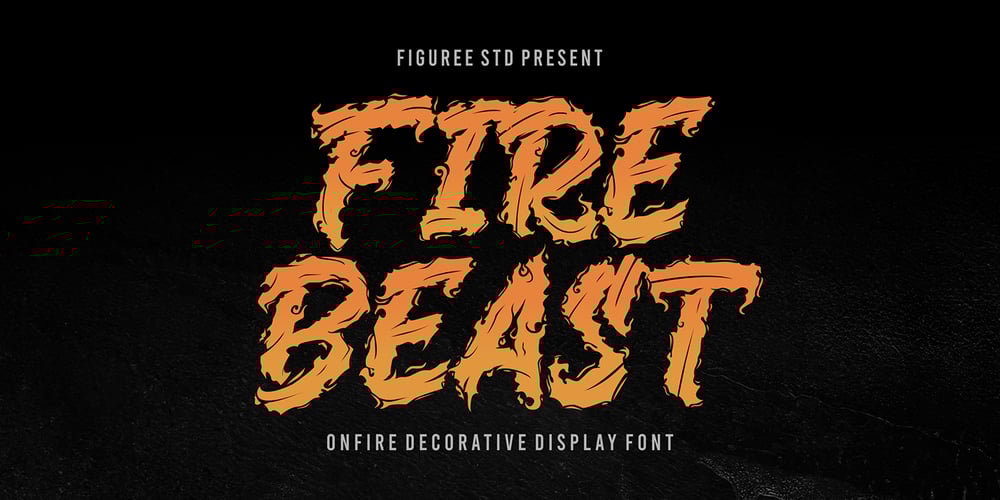
Fire Beast Font Family was designed by Icep Anwar Fadhil and published by Figuree Studio. Fire Beast contains 1 styles and family package options. Introducing Fire Beast – the Decorative Fire Font that ignites your designs with fierce intensity and dramatic flair. Perfect for projects that demand a bold and fiery touch, Fire Beast combines striking letterforms with flame-inspired embellishments to create a font that is both powerful and captivating.🔥 Blazing Intensity: Fire Beast sets your designs ablaze with its bold and dynamic style. Each letter is adorned with flame-like details, evoking the fierce energy and captivating allure of fire, making it ideal for projects that need a strong and dramatic visual impact.⚡ Striking and Bold: With its eye-catching design, Fire Beast captures attention. The font’s decorative elements ensure your text stands out, making it perfect for headlines, posters, and branding that require a commanding and memorable statement.🌟 Decorative Elegance: Whether you’re designing for music events, sports teams, or edgy brands, Fire Beast adapts effortlessly. Its unique fire-inspired design adds a touch of bold sophistication to a wide range of applications, enhancing the visual appeal of your work.💥 Fiery Visual Appeal: Fire Beast’s intense and decorative look captures the essence of flames. The font’s distinctive character ensures your message is conveyed with passion and strength, leaving a lasting impression on your audience.🚀 Versatile for Various Projects: From album covers and merchandise to digital graphics and promotional materials, Fire Beast excels in any context. Its fiery aesthetic enhances your designs, making them resonate with energy and intensity.Ignite your creativity with Fire Beast – the Decorative Fire Font that elevates your designs. Perfect for adding a bold and dramatic touch to any project, Fire Beast is your go-to font for creating striking and impactful text that truly stands out.